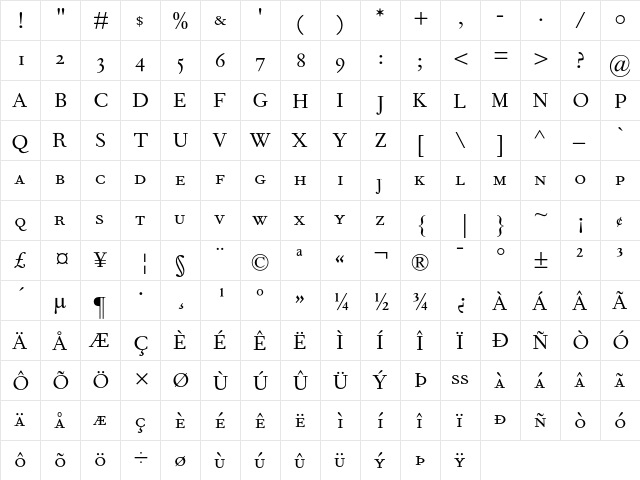
Fournier MT Regular Small Caps & Old Style Figures
Design Context for Fournier MT Typeface
Fournier MT is a composed and adaptable typeface that performs quietly and consistently across a wide range of design contexts.